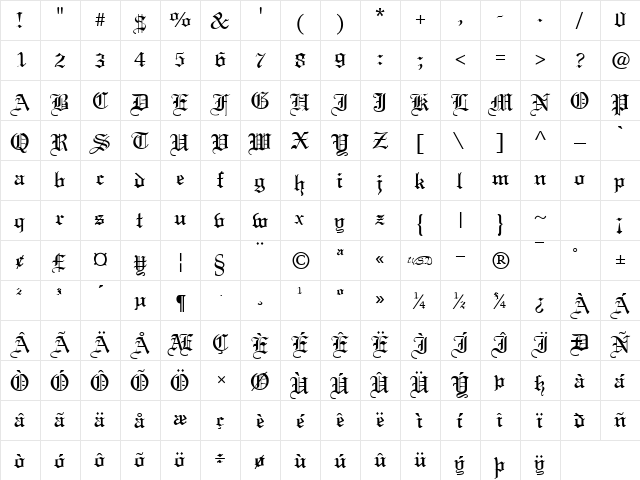
Linus Text Regular
Design Context for Linus Text
Linus Text is a composed and adaptable typeface that performs quietly and consistently across a wide range of design contexts.